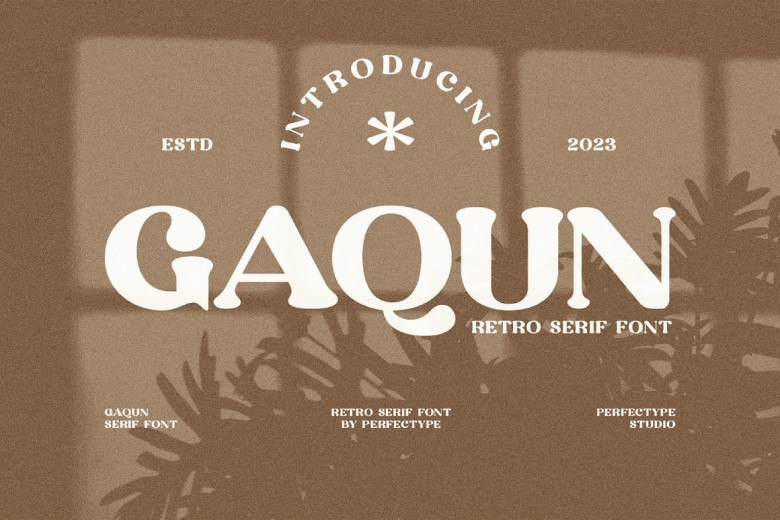
Gaqun Font
Gaqun is a stylish serif typeface, boasting modernity with its contemporary yet elegant style. This font can be used in various applications including branding projects, logo and wedding designs for social media posts as well as ads packaging products labeling photography invitations stationery projects and any other projects requiring high readability.
Gaqun Serif Font